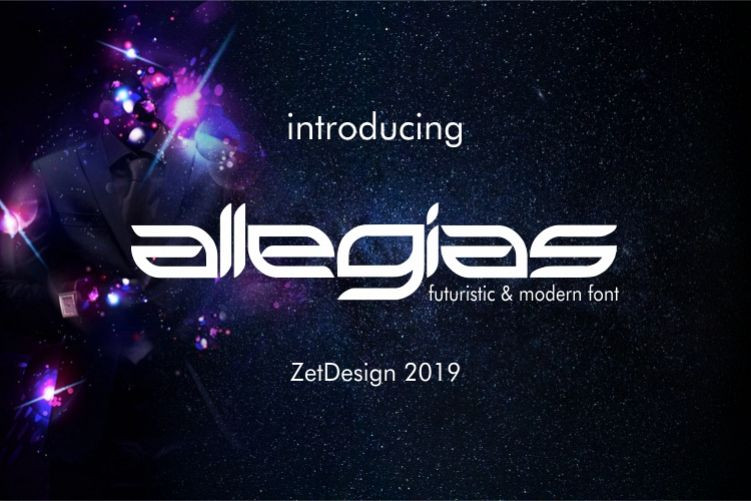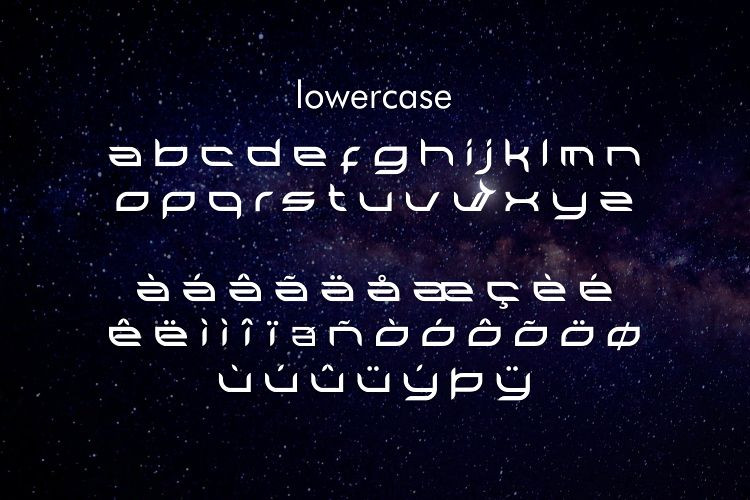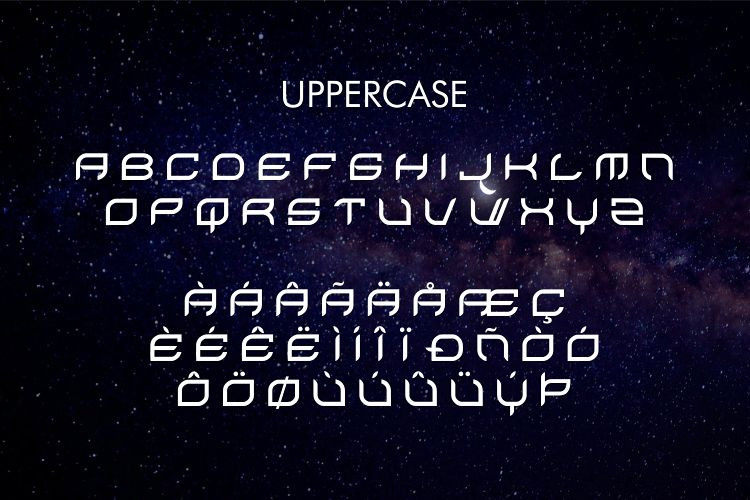
Allegias Regular Font
We introduce our new product that we named Allegias futuristic and modern font…..  this font is suitable for clothing, logo,
magazine, banner, etc.